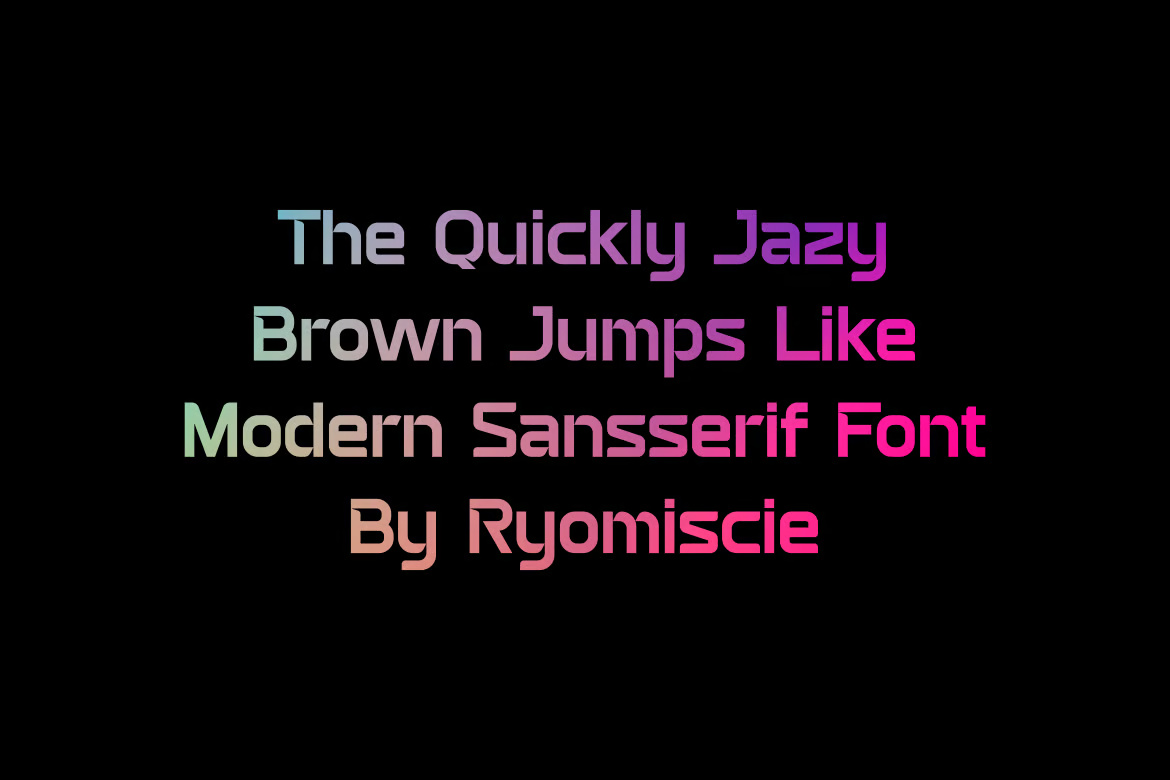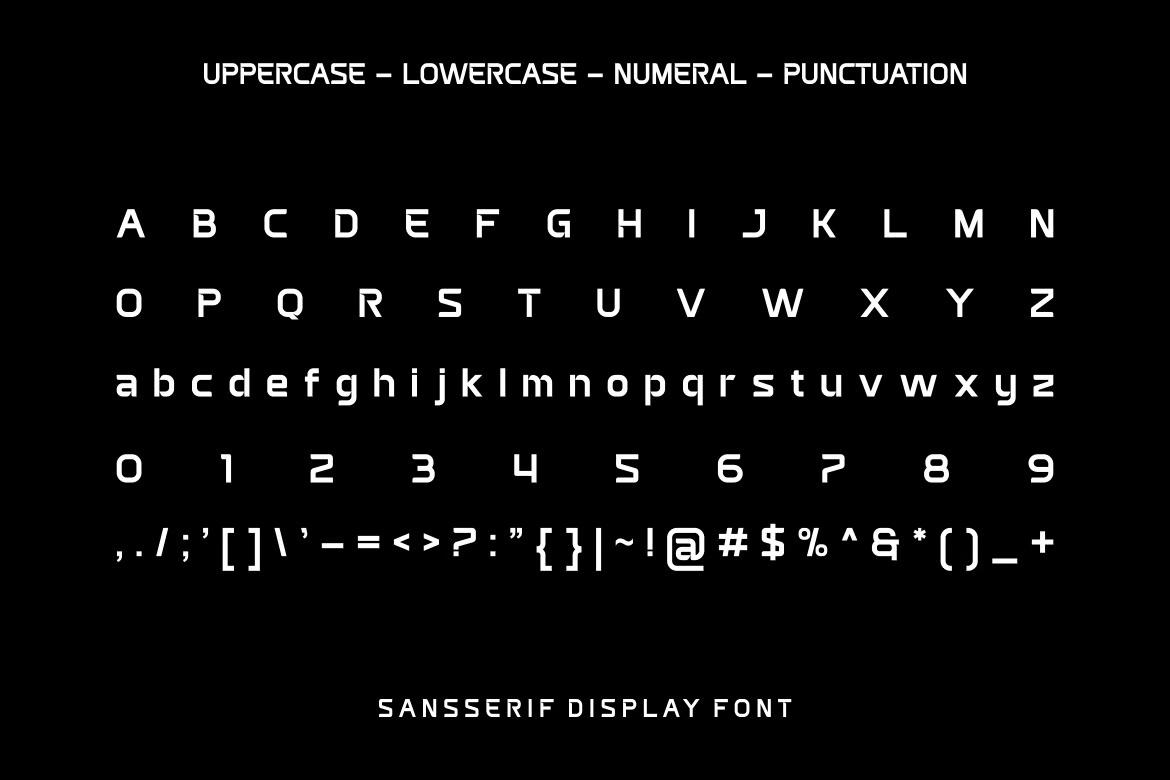
Neuback – Modern Sans Serif Font
Neuback Font – Modern Font is a bold and striking display typeface that exudes strength and authenticity. With its clean lines and contemporary design, it is perfect for a variety of branding projects, including logos, t-shirt printing, esports branding, posters, and more. Its versatility makes it stand out in a wide range of creative and professional contexts, adding a strong visual impact to any design.